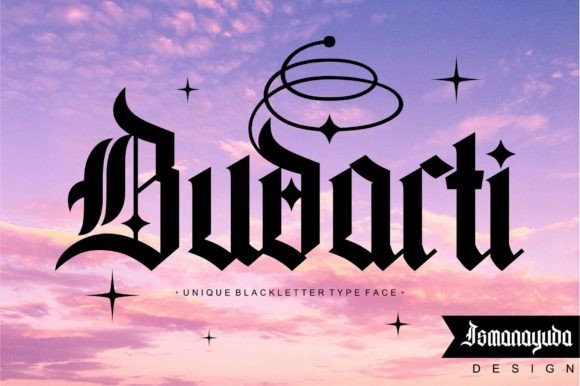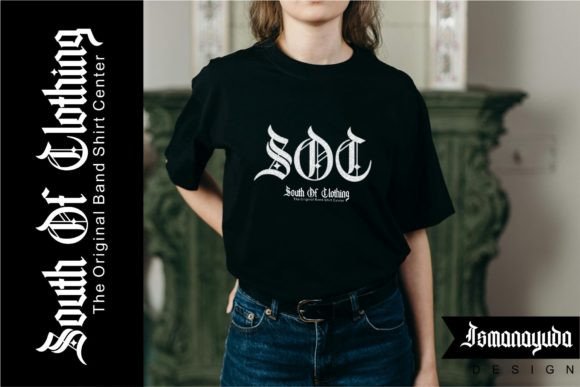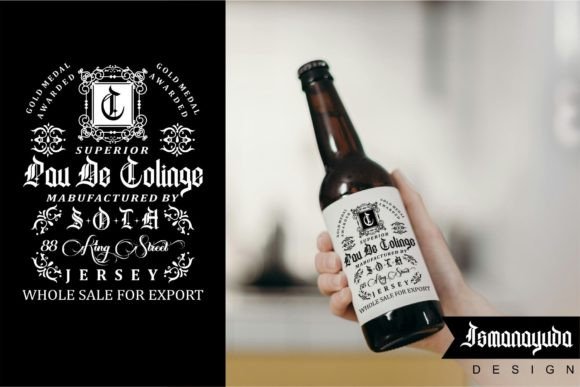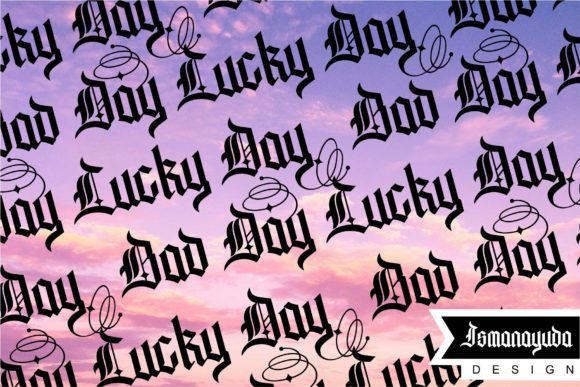
Budarti Font: Bold Blackletter for Unique Logo Design & Cricut Crafts
About the Budarti Font
Introducing the Budarti Font, a beautifully crafted typeface designed to elevate your creative projects. Budarti is a bold and thick lettered blackletter font. Add it confidently to your projects, and you will love the results. This font is PUA encoded which means you can access all of the glyphs and swashes with ease!
Budarti’s bold, thick strokes make it ideal for headlines, short impactful statements, logos, and posters where a strong visual presence is desired. It also works well for branding applications requiring a touch of medieval flair or vintage aesthetic, particularly for products targeting a niche audience. However, its weight and density make it unsuitable for body text or extended reading; the heavy forms would quickly become fatiguing.
Consider pairing Budarti with a clean sans-serif like Open Sans for a balanced contrast—the sans-serif providing readability for supporting text. For a more sophisticated look, a delicate serif typeface like Garamond would create a classic, yet powerful combination. Avoid pairing it with other highly decorative fonts as this could create visual clutter.
Budarti projects a confident, powerful personality. It’s best suited for brands that want to convey authority, heritage, or a slightly rebellious spirit. Its strong forms are not ideal for projects requiring approachability or a lighthearted feel.